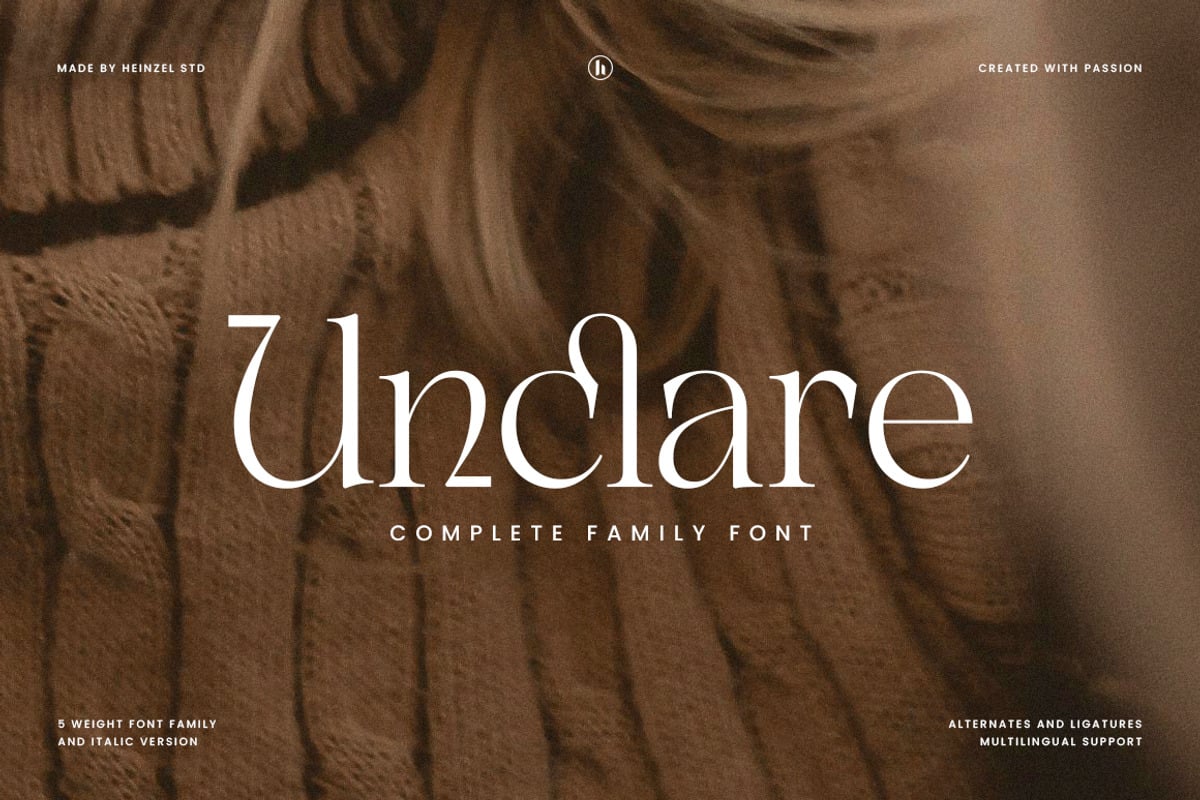
Unclare Serif Font Family (10 Fonts)
Unclare is a striking ligature serif font family that merges timeless elegance with a fresh, contemporary edge.
With its refined aesthetic and captivating character design, Unclare is built for designers who want to make a lasting impression. Whether you're crafting luxury logos, bold editorial headlines, or sophisticated branding materials, this typeface delivers polish and personality in equal measure.
Its graceful letterforms make it a natural fit for wedding invitations, upscale stationery, and social media content that demands attention. PUA encoding ensures seamless access to a full library of unique glyphs, giving you maximum creative flexibility across any design project.
- 5-weight font family
- Italic versions included
- Uppercase, lowercase, numerals, and extended punctuation
- Ligatures and alternates
- Multilingual language support